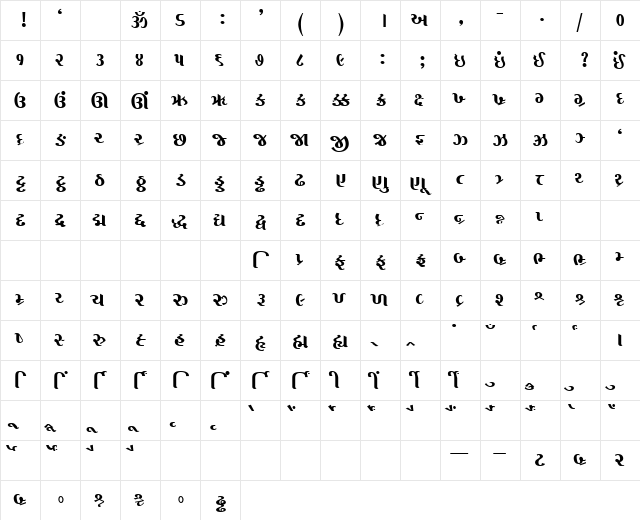
AkrutiGujMamata Bold
Design Context for AkrutiGujMamata Typeface
AkrutiGujMamata takes a measured approach to typography — its balanced proportions and neutral character make it a reliable workhorse for both digital and print work. Its bold stroke weight gives it real presence on the page.